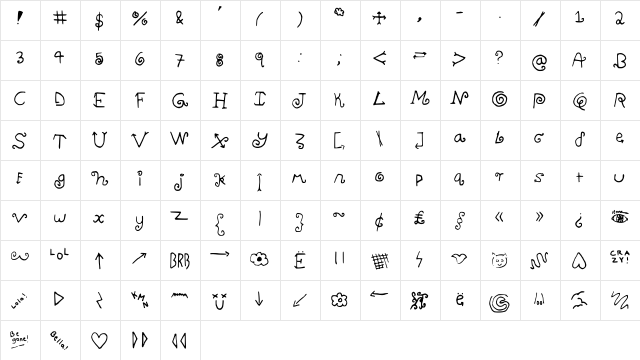
NevermindMe Medium
Design Context for NevermindMe Typeface
NevermindMe is a composed and adaptable typeface that performs quietly and consistently across a wide range of design contexts.